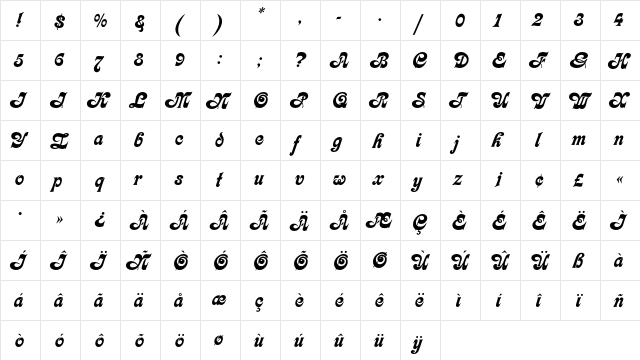
KalligraphiaEF Regular
Design Context for KalligraphiaEF Typeface
KalligraphiaEF is a composed and adaptable typeface that performs quietly and consistently across a wide range of design contexts.